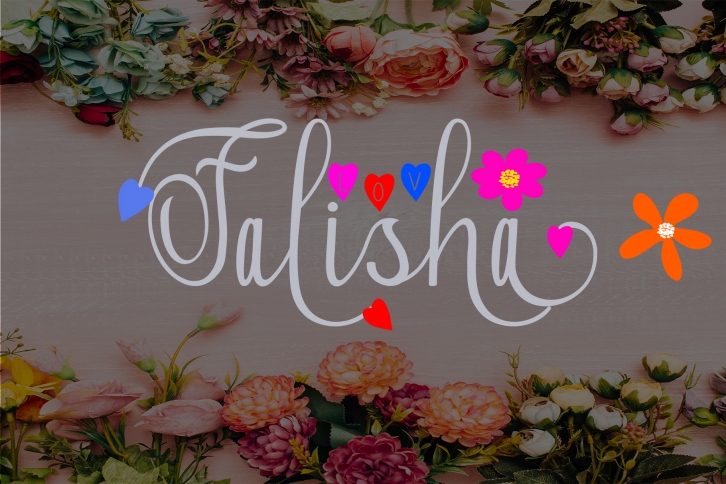
Falisha is a gorgeous font that was realeased on August 1, 2018. The font can be used in many style contexts and design environments. Perfect for invitations, magazines, websites, logos, and more! It was designed by Mahyud Creatif and the file size is 11.68 MB. Thanks for checking out this font!